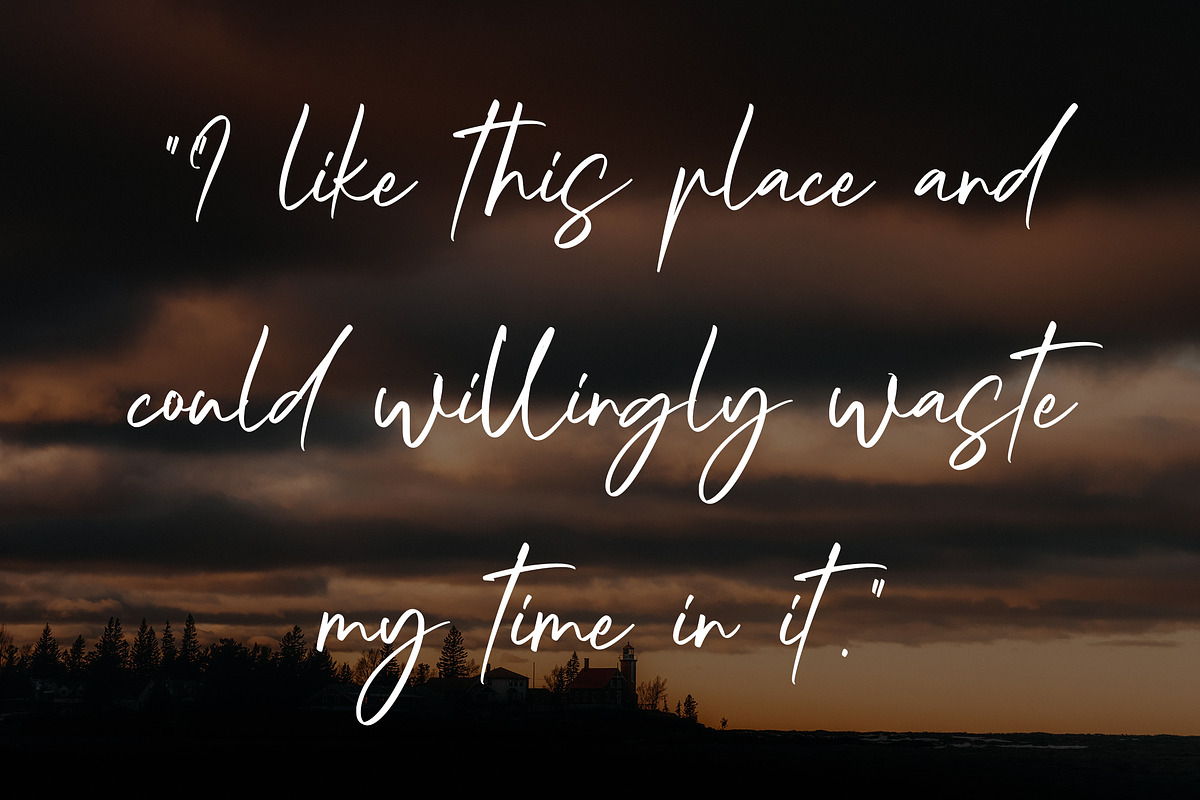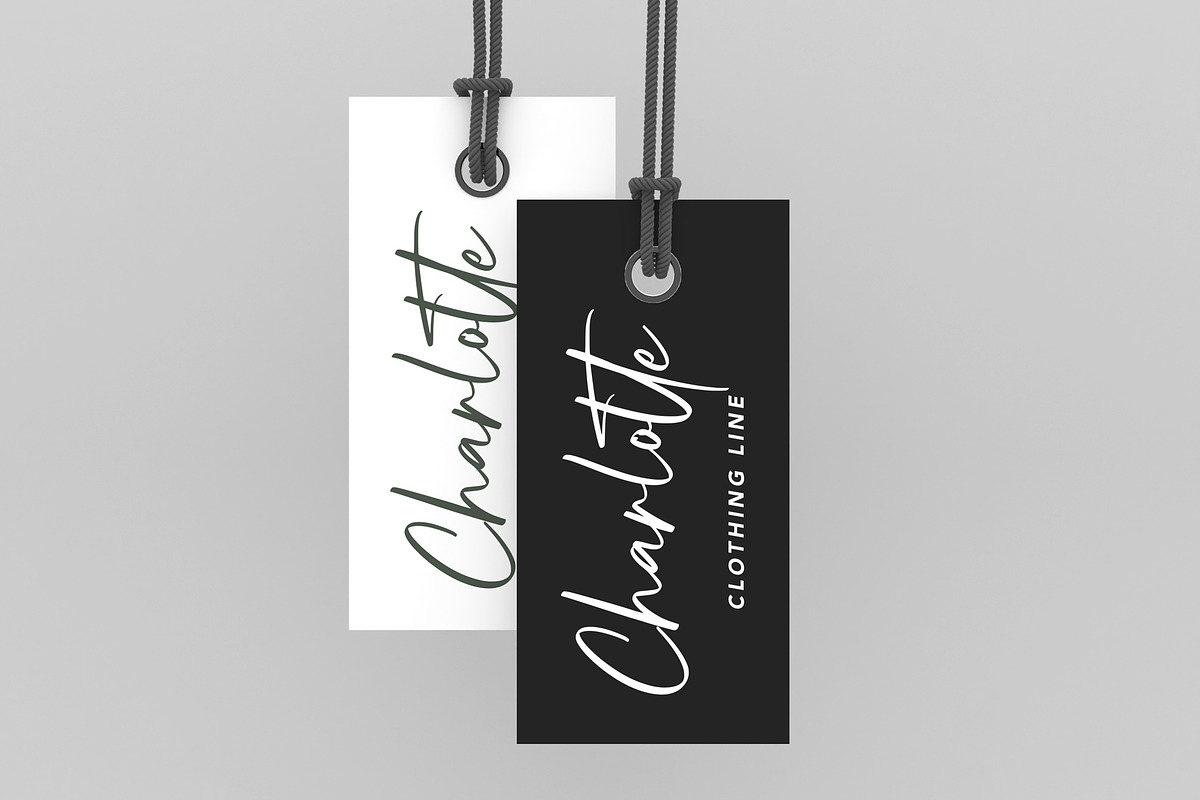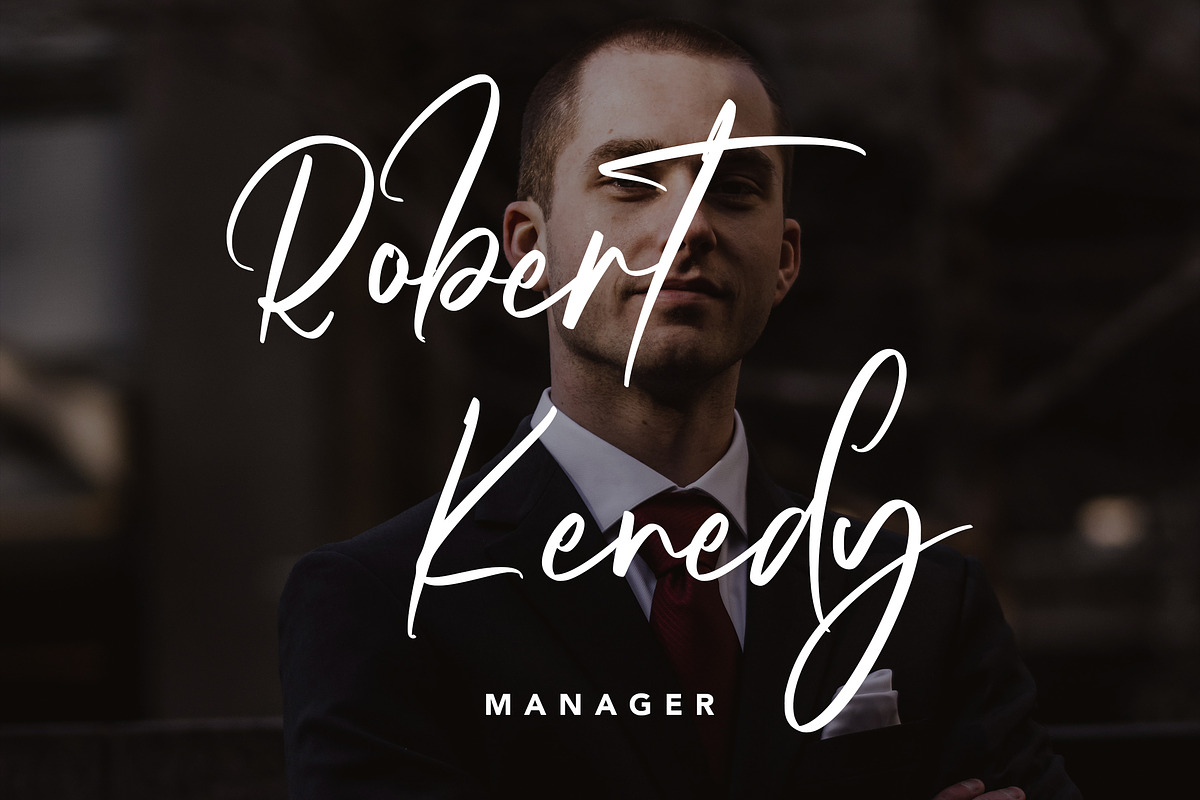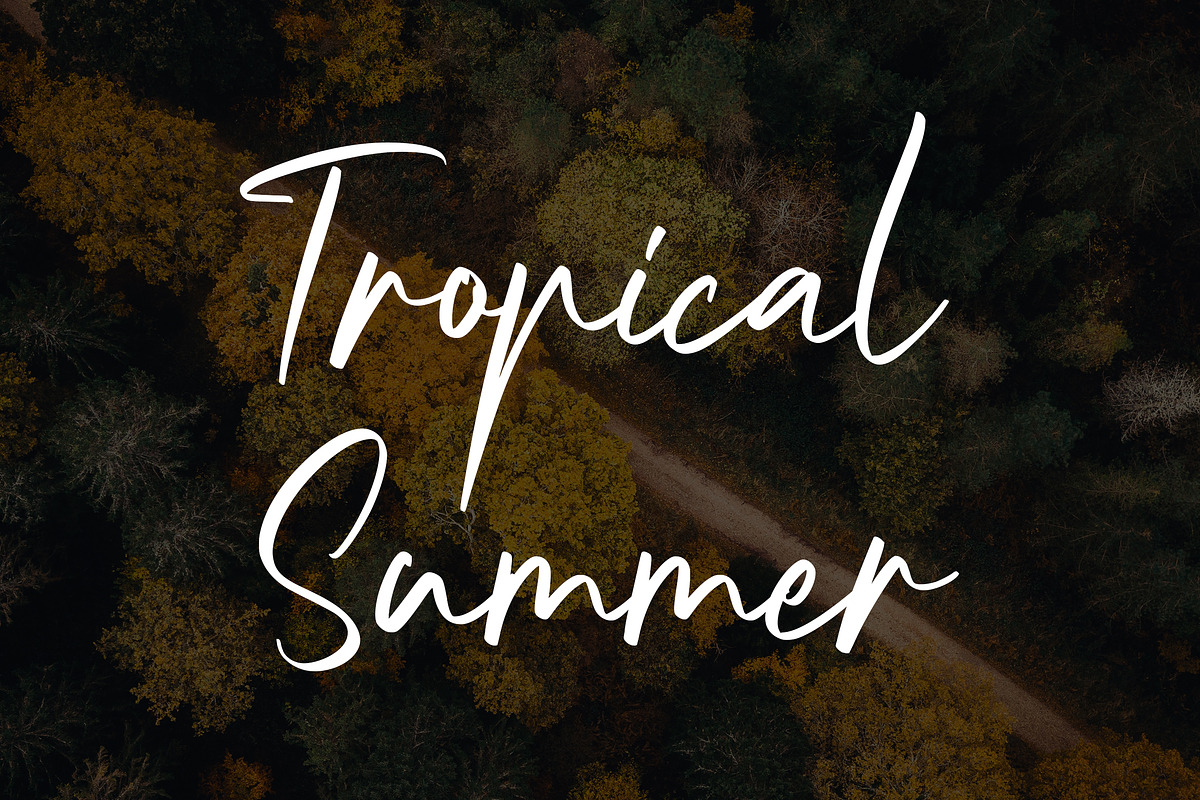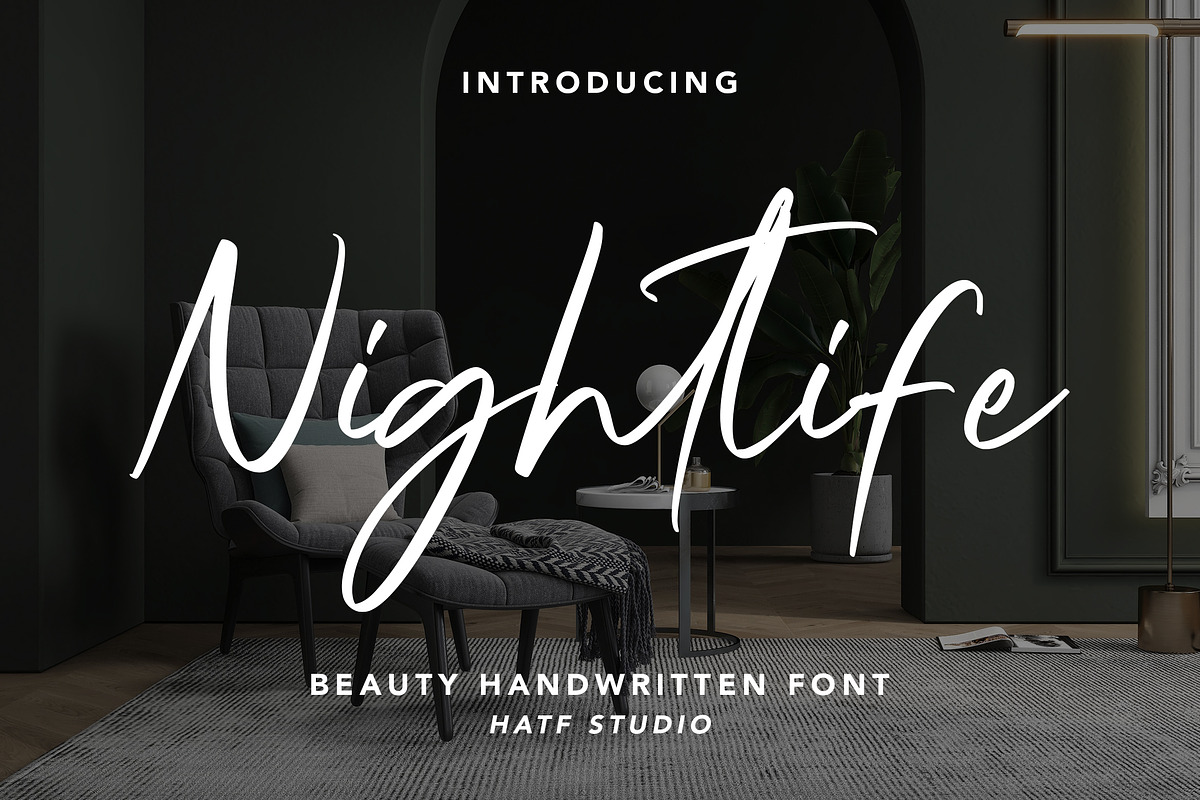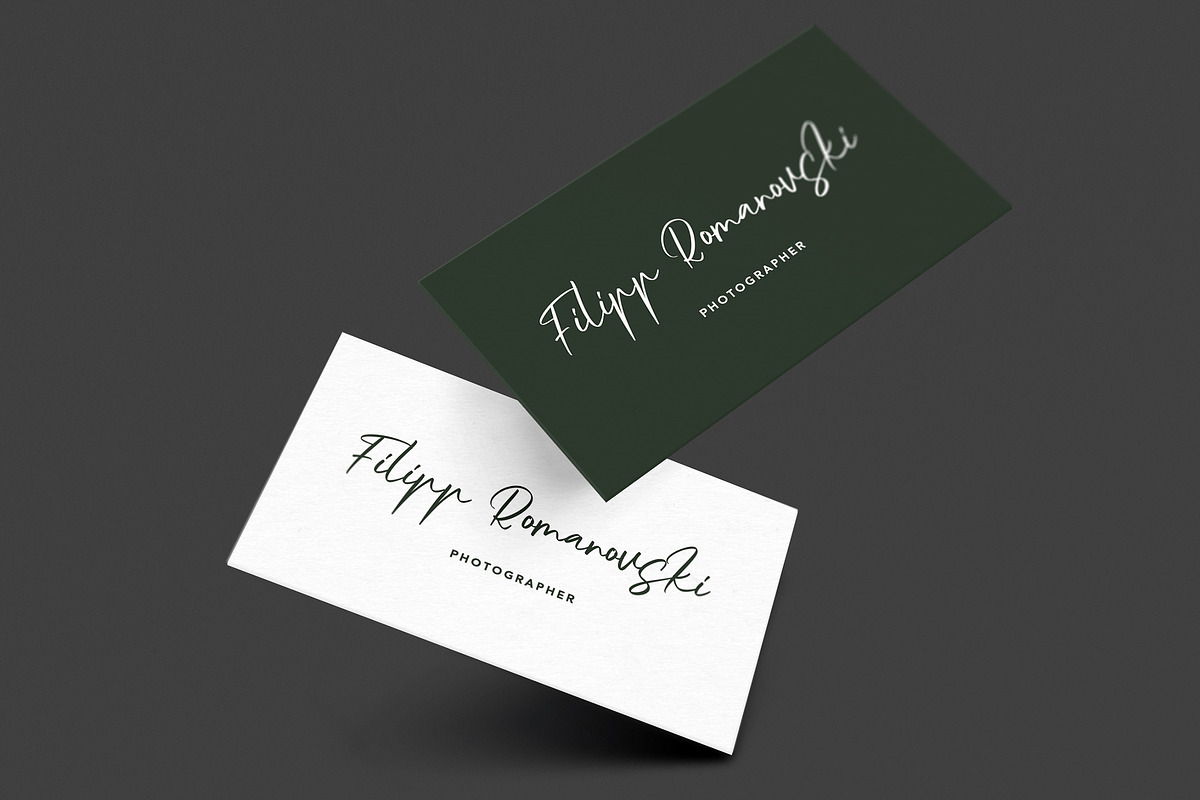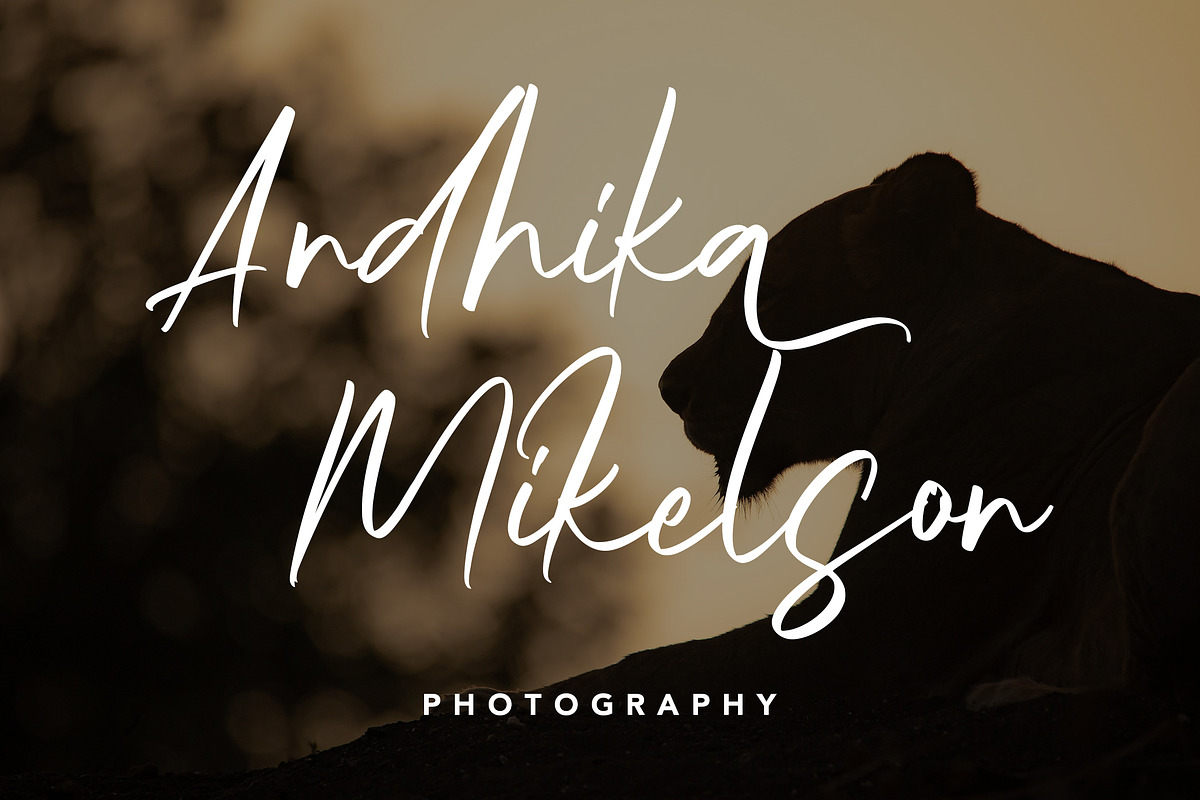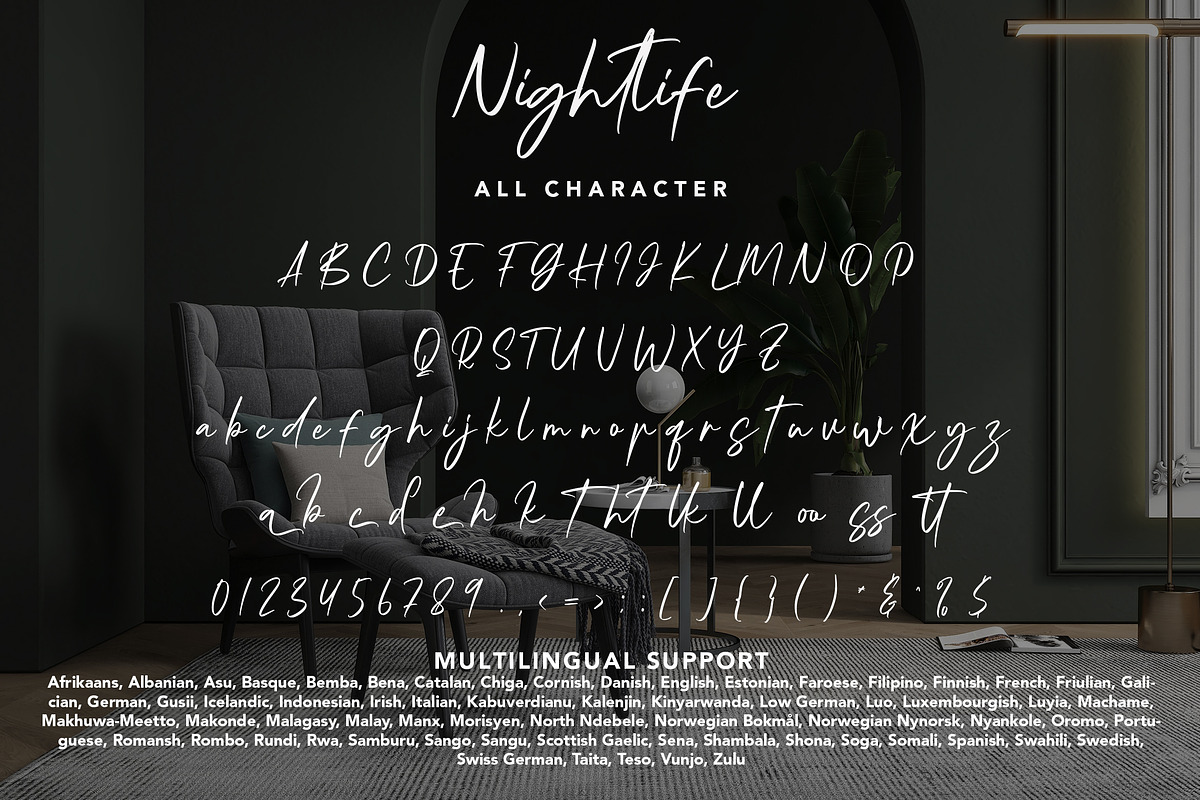
Nightlife
Elegant, enchanting, and stylish, NIGHTLIFE is a handwritten font that exudes the charm of the night. With its smooth strokes and natural curves, NIGHTLIFE is designed to add a personal and elegant touch to any of your creative projects.
Inspired by the glitz and glamour of nightlife, this font is perfect for wedding invitations, exclusive logos, social media designs, and artwork that requires a modern and classy feel. NIGHTLIFE strikes the perfect balance between softness and confidence, making it an ideal choice for stealing the show in an elegant way.
Whatever story you want to tell, let NIGHTLIFE write it in a style that captivates the heart and captivates the eyes.